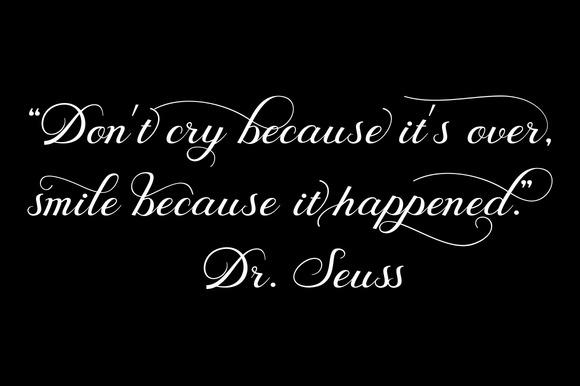
Behind Script Font
Behind Script is a smooth hand calligraphy, modern calligraphy wavy, which was created to meet the needs of your next design project. Love Moment, Can used for various purposes. such as the title, logo, correspondence, wedding invitations, letterhead, signage, labels, newsletters, posters, badges, t-shirt, etc.